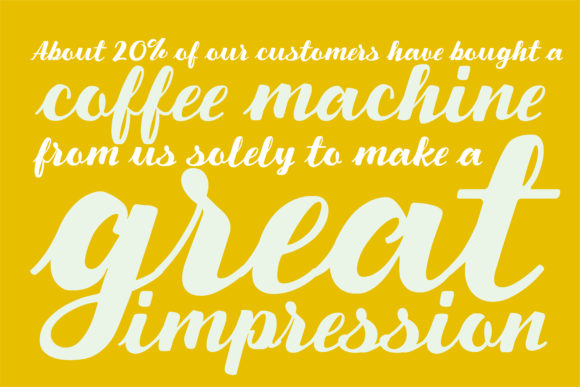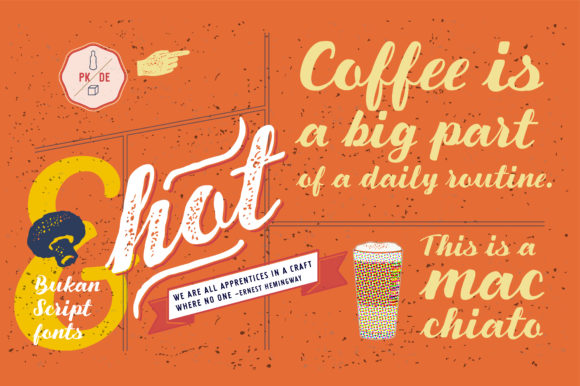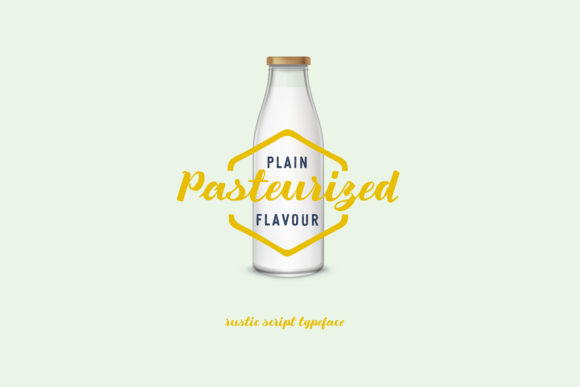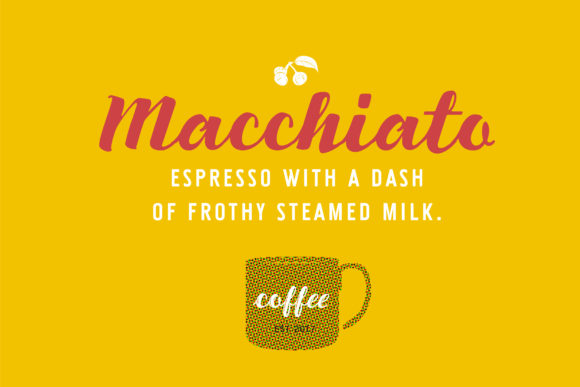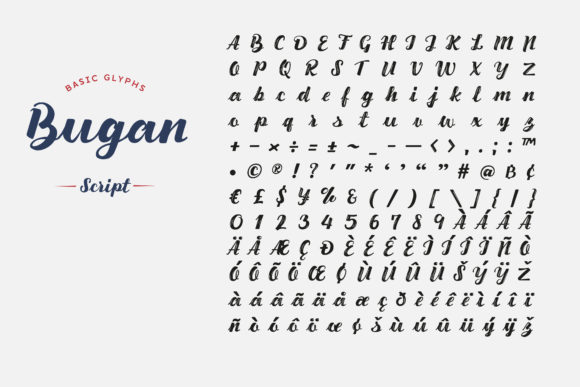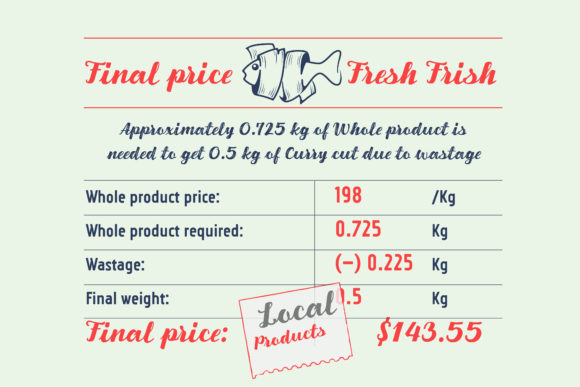
Bugan Script Font
About Bugan Script Font
Bugan Script is a playful handwritten font. The characters of this typeface are bold, clean, and vintage-inspired, which makes it perfect for creating headline display texts, logos, branding, advertising, food Industry, apparel design, labels, etc.